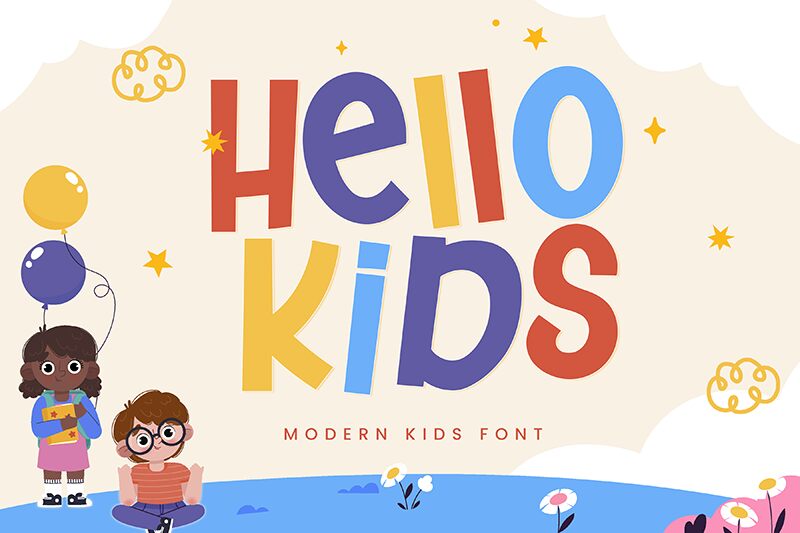
Hello Kids is a free font designed by Kong Font, full of excitement and creativity. Inspired by children’s doodles and scribbles, Hello Kids is informal and friendly, with cartoon, modern characteristics. Each letter is colorful, lively, childlike, inviting, cheerful, and fun. This font is available in variable styles suitable for casual and energetic projects. The font contains beautiful characters for letters, numbers, punctuations, standard symbols, and other eye-catching features.
Use Hello Kids to design children’s book covers, school magazines, hand-made shampoo labels, T-shirt writing, comic book covers, cartoon invitations, birthday cards, and packaging designs. Posters, business cards, flyers, and company logos are also great design ideas.